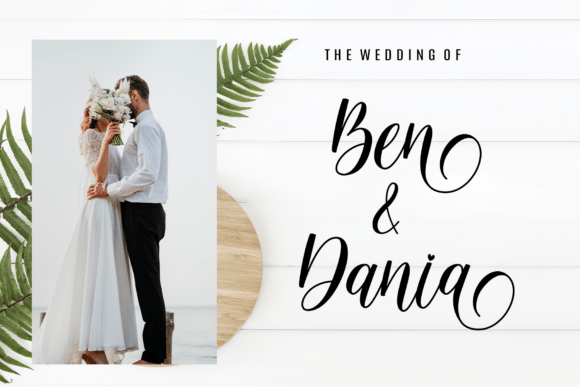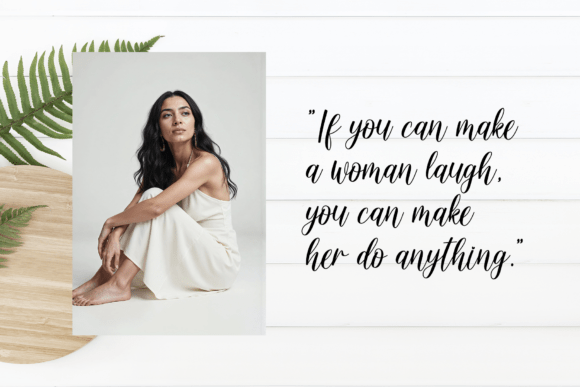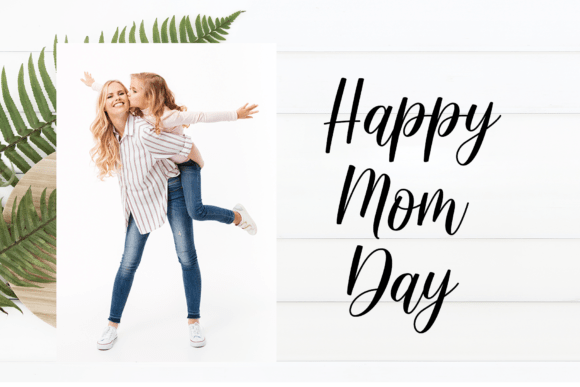
Sellena Font
Sellena is a handwritten font with an impressive mix of calligraphy.able to give beautiful colors and views to any design you want.perfect for those of you who need a simple yet elegant theme!